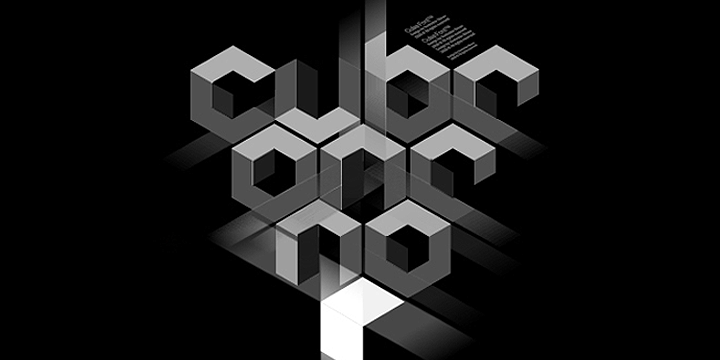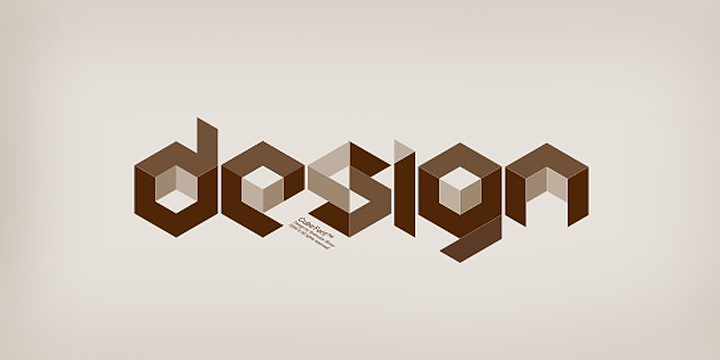
About the Cubic Font
About Cubic Font Family Cubic is a custom font which is applicable for any type of graphic design – web, print, motion graphics etc, It is perfect for t-shirts and other items, Designers: Svetoslav SimovPublisher: FontfabricFoundry: FontfabricDesign Owner: FontfabricMyFonts debut: Dec 23, 2008 Cubic